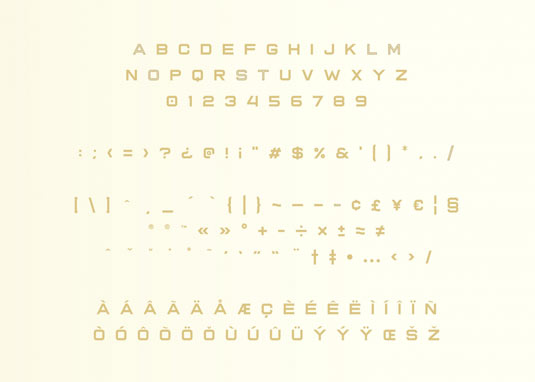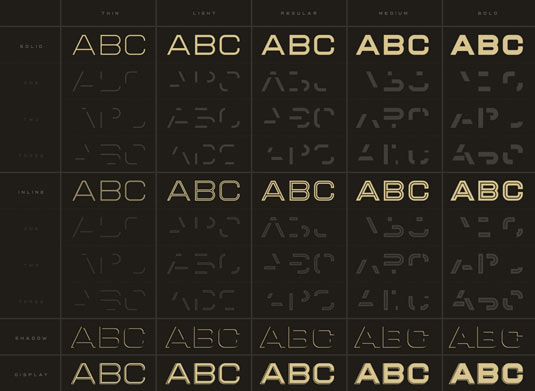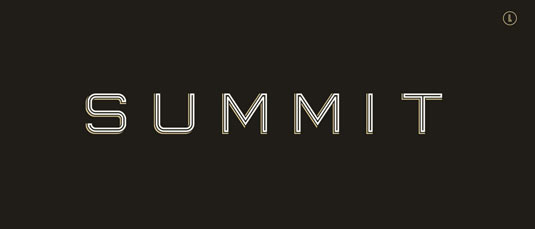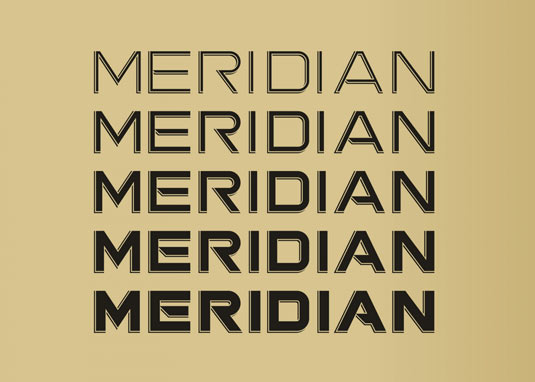
Font of the day: Summit
Summit by Luke Lisi
Created by designer Luke Lisi, Summit is a display face with characteristics inspired by geometric sans serifs dating back to the late nineteenth-century. Containing 10 styles, available in five weights, Lisi generously offers this elegant typeface as a free download, with donations to the author, as always, greatfully received.